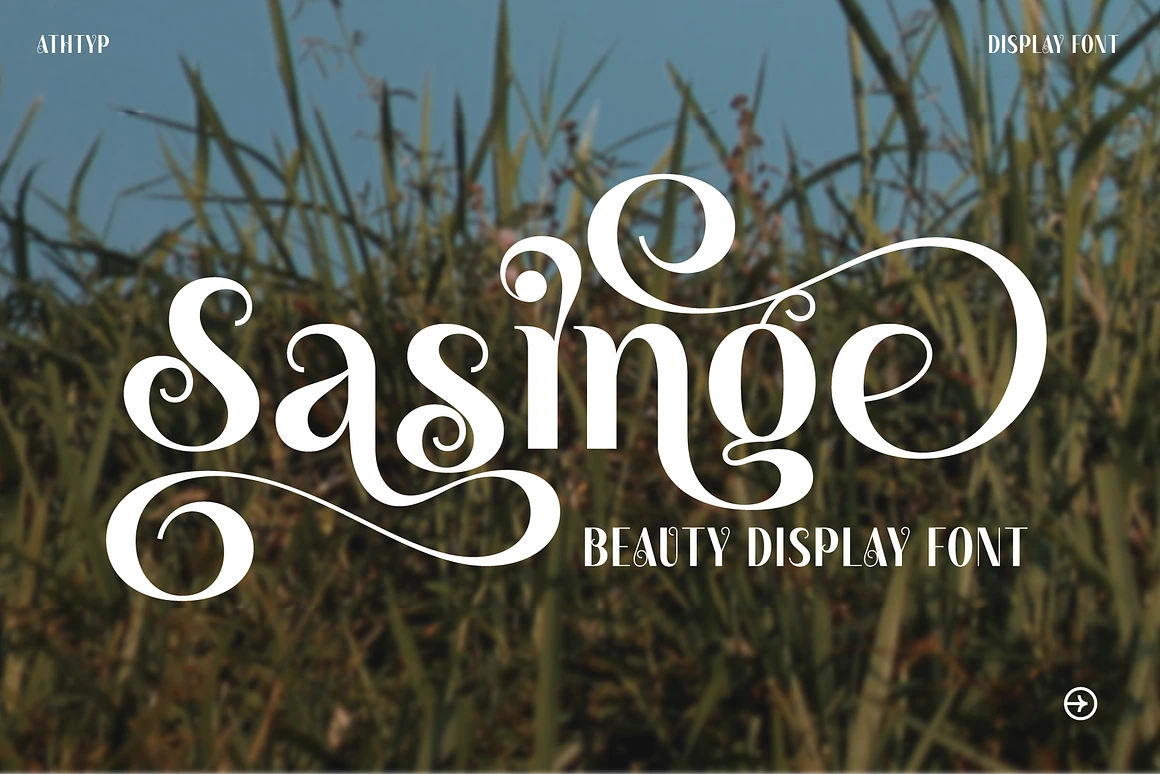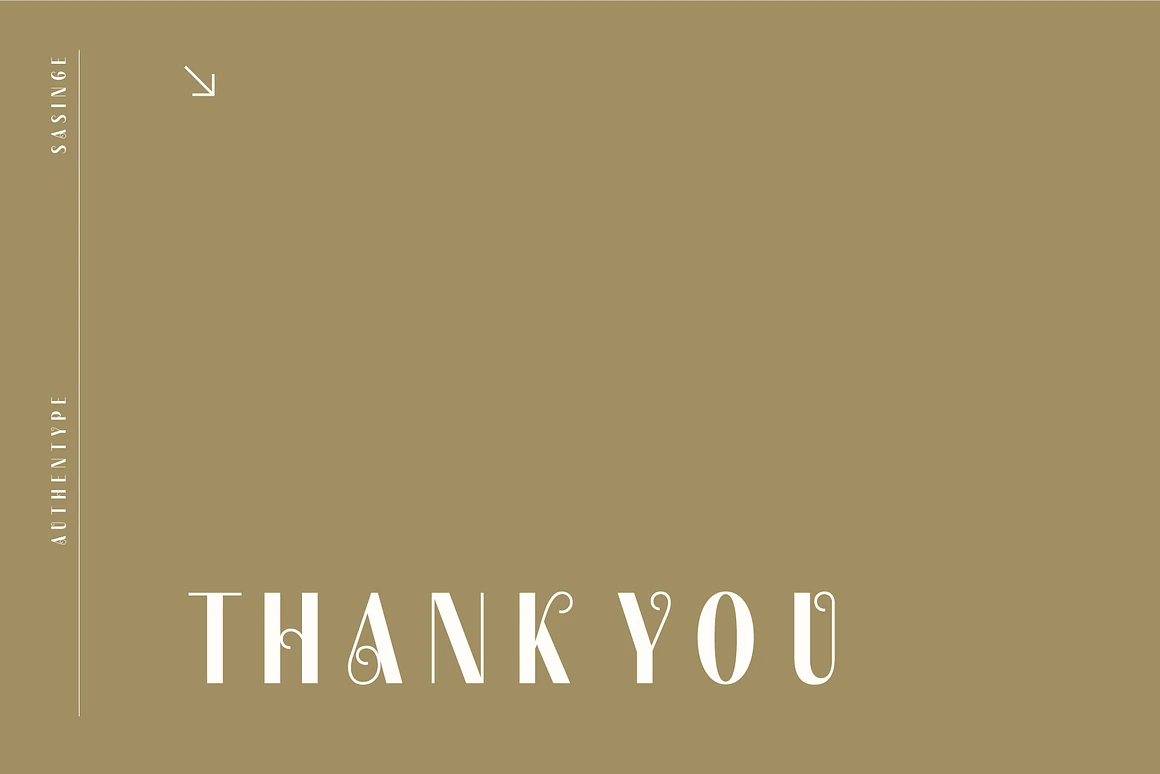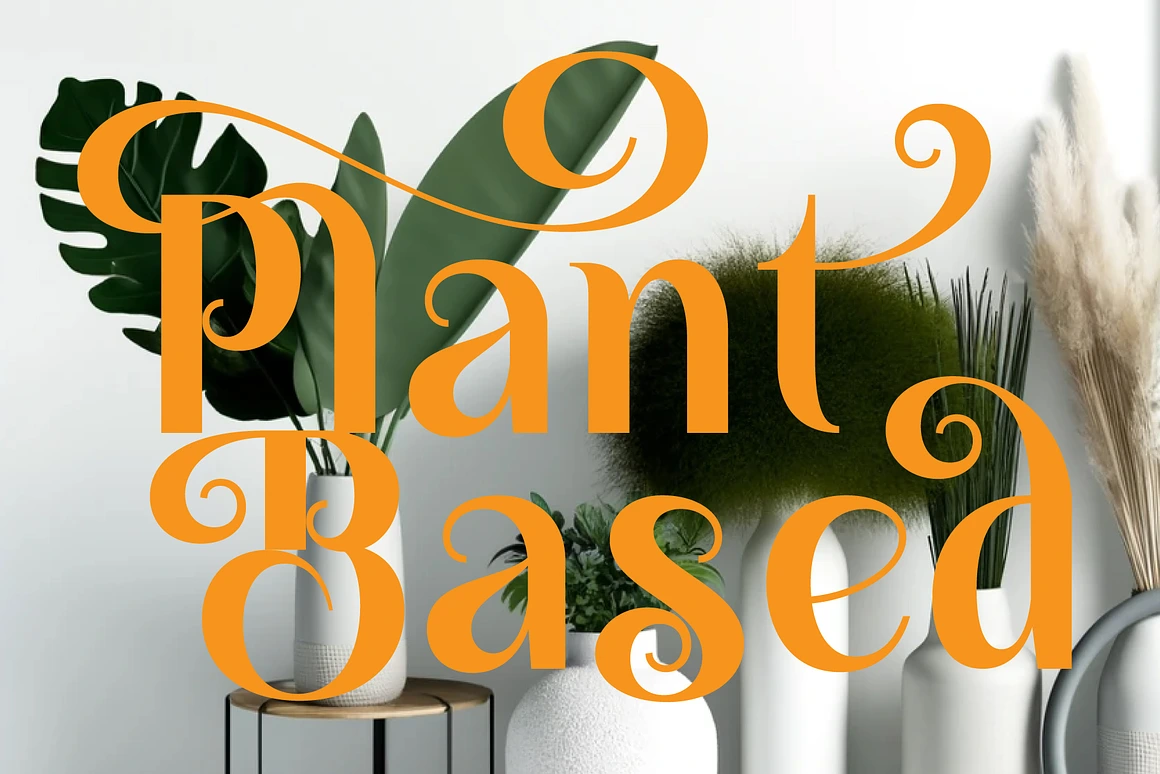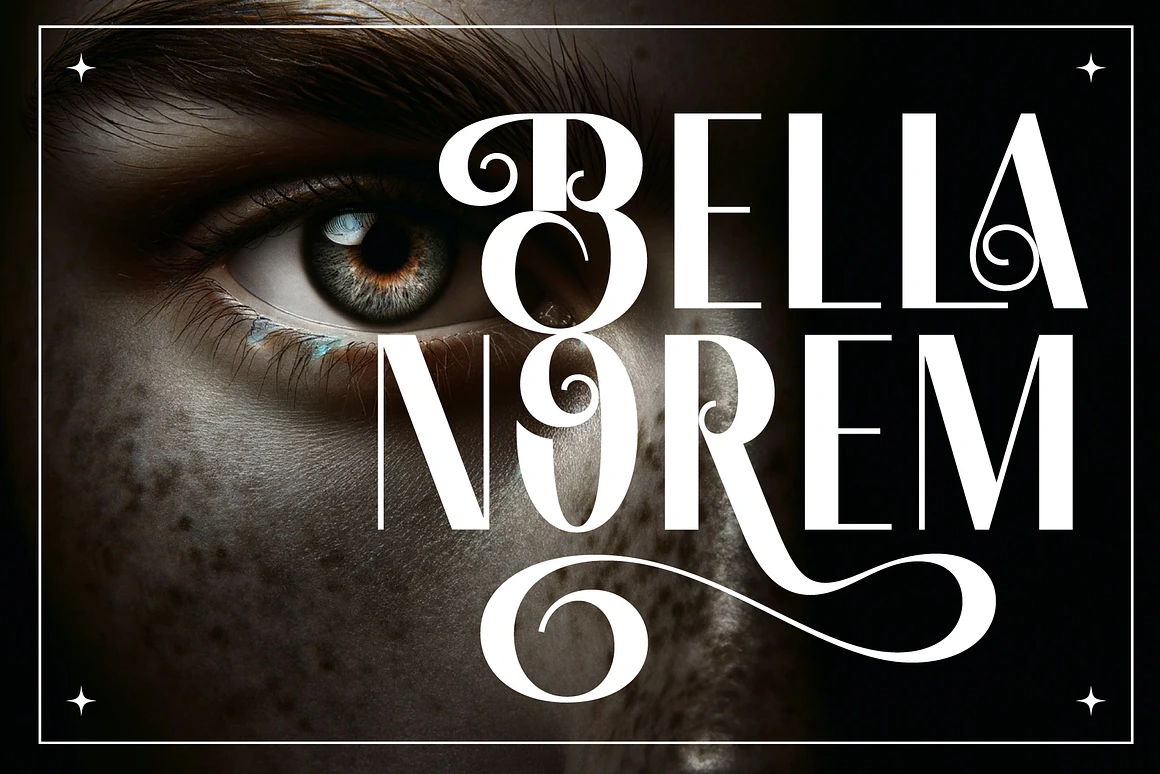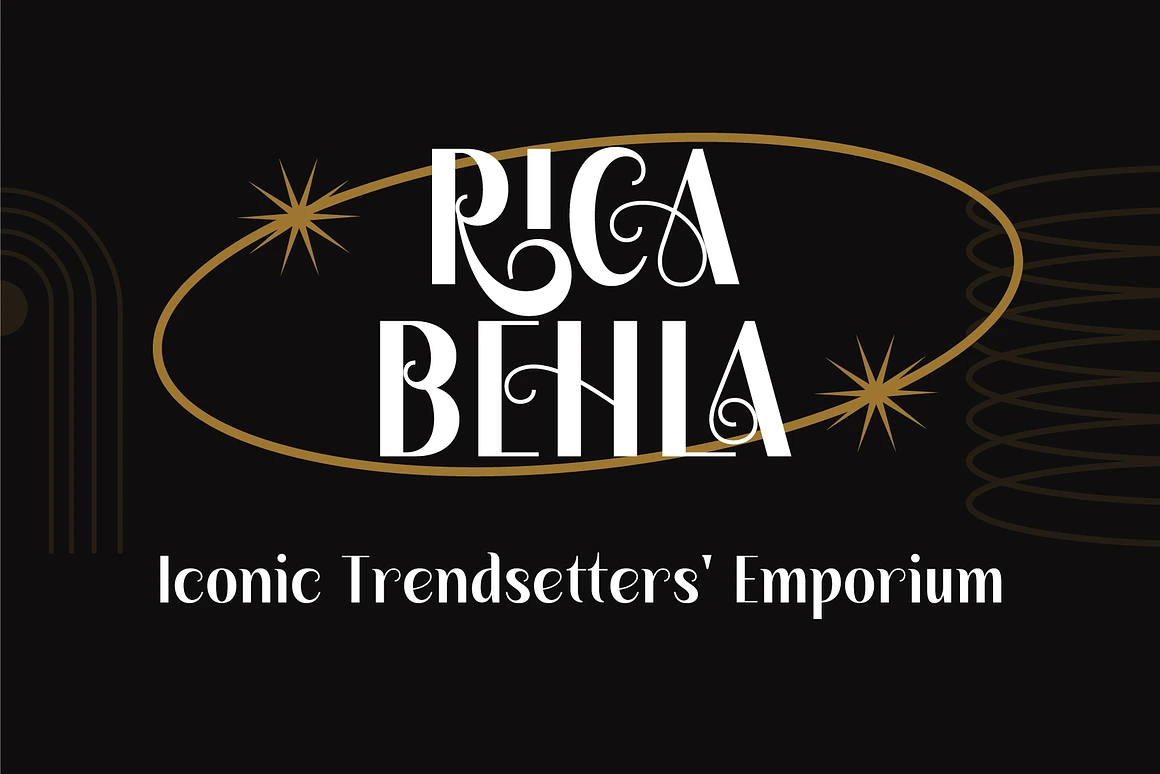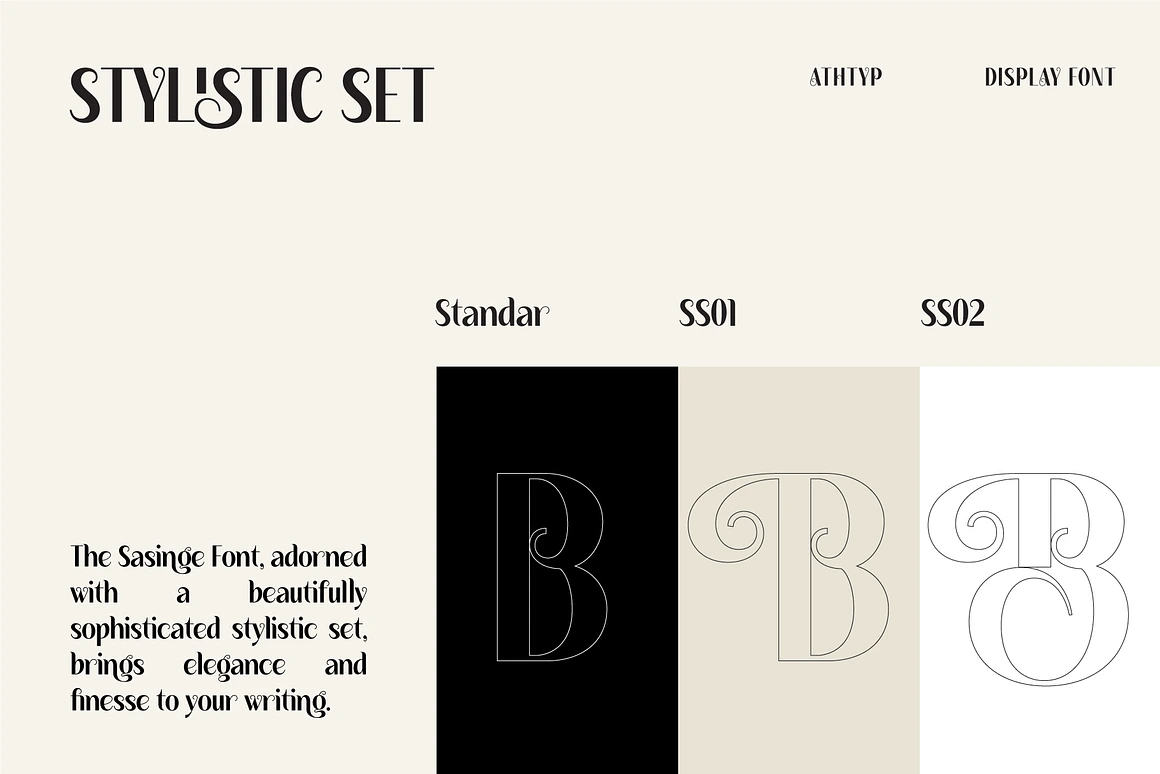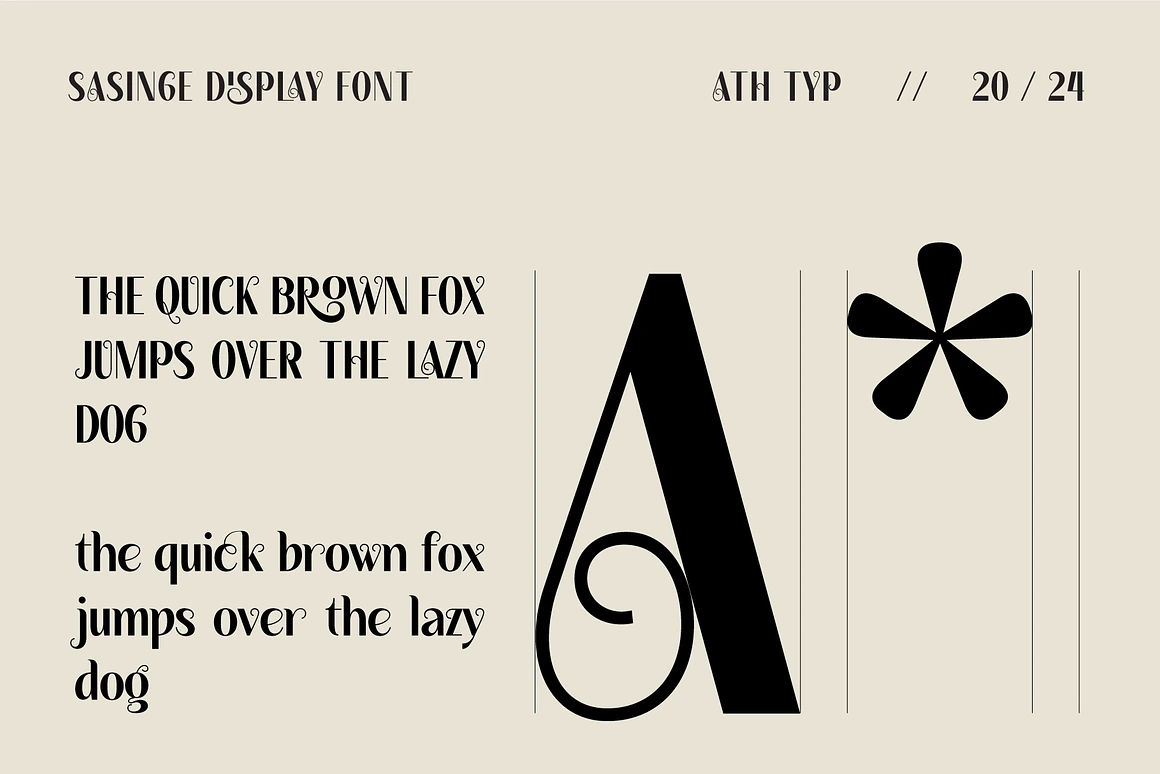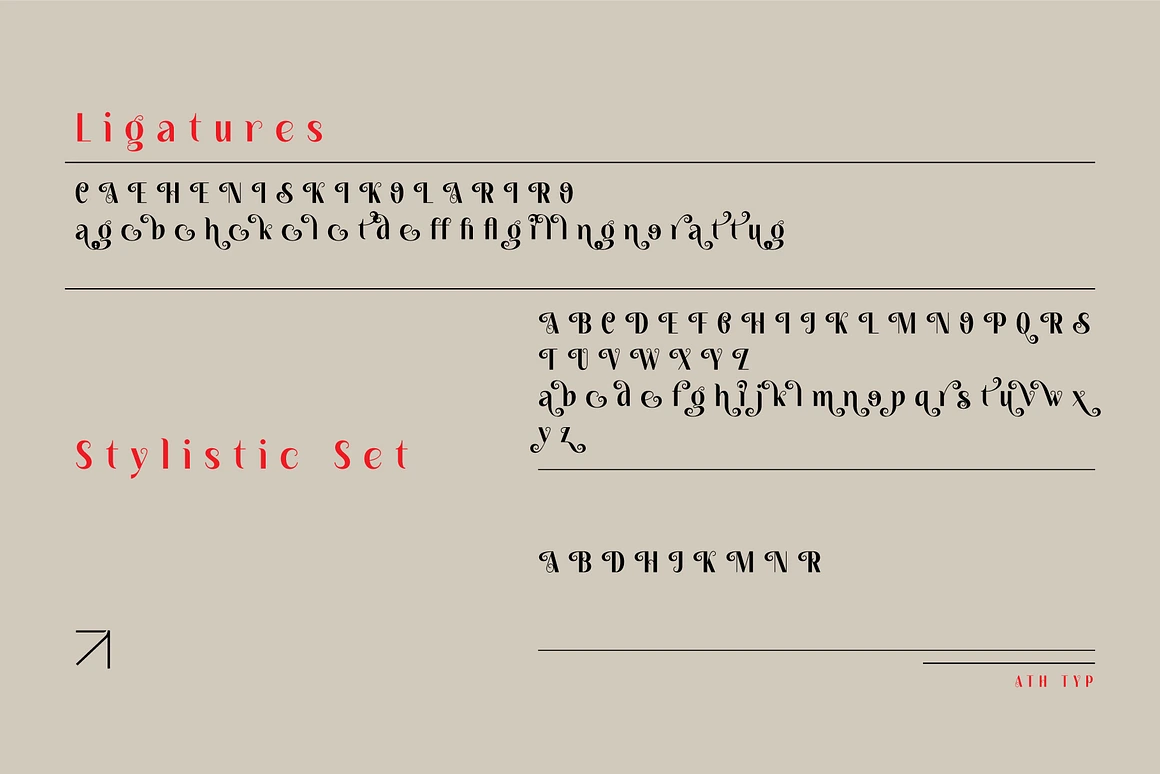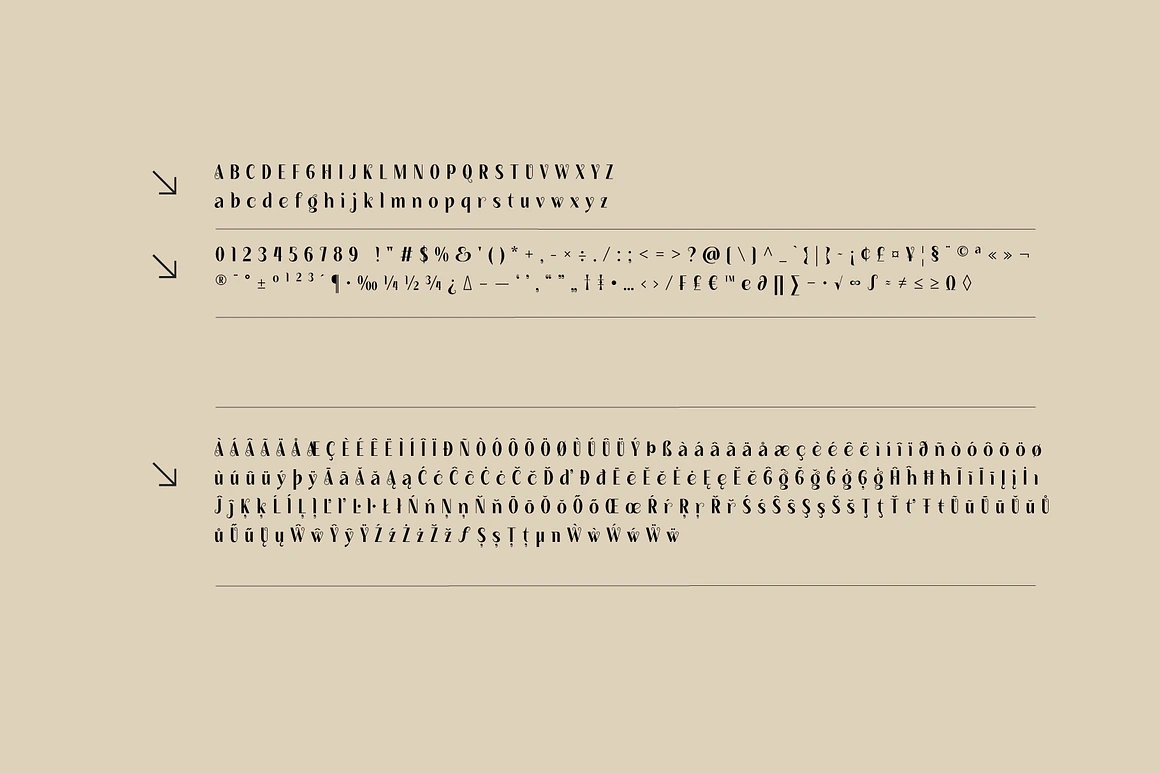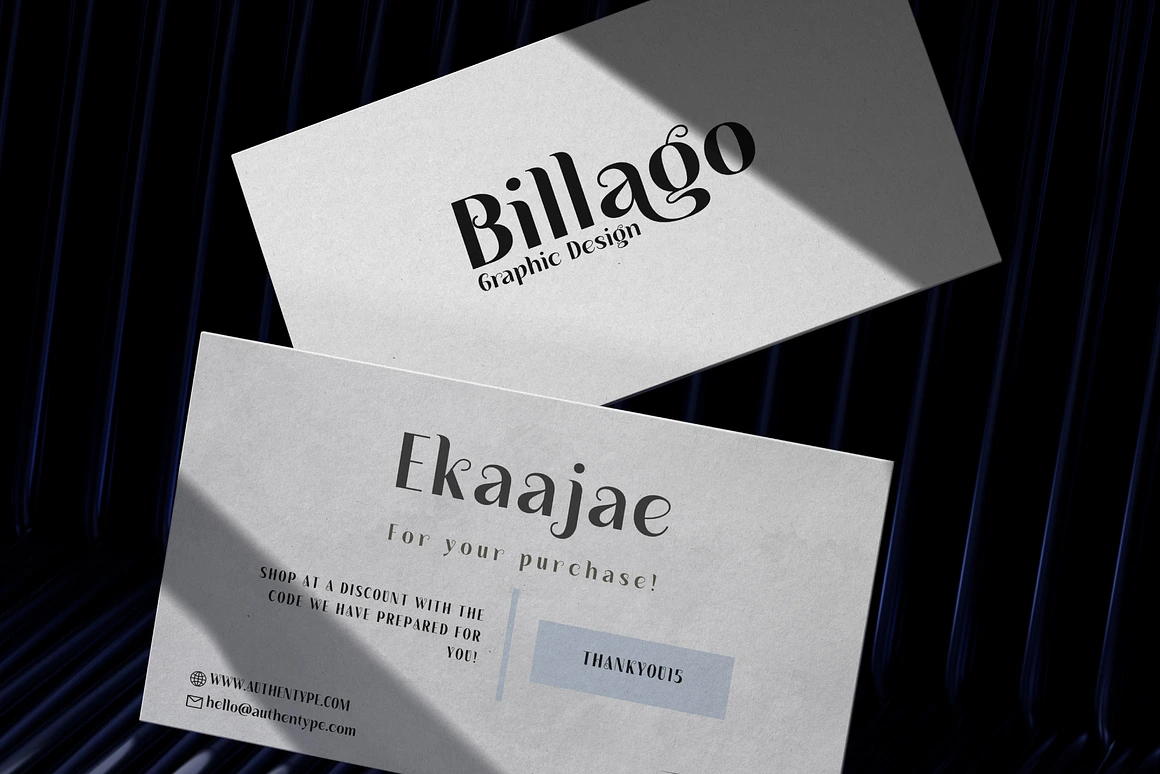
Sasinge Beauty Display Font
Sasinge
Sasinge Beauty Display Font, a captivating display font that embodies elegance and sophistication. With its unique character design, Sasinge Beauty is the epitome of style and finesse, perfect for making a statement in high-end branding, luxury advertising, and fashion editorial projects.
Key Features:
Ligatures: Sasinge Beauty comes with a set of beautifully crafted ligatures that seamlessly blend letters together, providing a smooth and connected text flow. These artistic touches add a bespoke feel to any design, making your projects stand out with an added layer of sophistication.
Stylistic Alternates: Unlock your creative potential with a wealth of stylistic alternates. Sasinge Beauty Display Font offers a variety of alternate characters that allow you to customize your text with decorative flair and individuality. Whether you’re looking for an ornate capital to start a headline or a whimsical end letter, this font provides endless possibilities to enhance your designs.
Multilingual Support: Catering to a global audience, Sasinge Beauty is equipped with extensive multilingual support, ensuring that your message resonates worldwide. This feature makes it an ideal choice for international brands, publications, and designers looking to communicate across different languages without compromising on style.
Sasinge Beauty Display Font is more than just typography; it’s a versatile tool that brings artistic expression to the forefront. Whether you’re crafting elegant invitations, standout packaging, or compelling digital content, Sasinge Beauty adds a touch of class that elevates your design work to new heights.
– Standard glyphs uppercase and lowercase letters
– Numerals, a large range of punctuation and ligatures.
– Swashes, Stylistic Set
– Multilingual support for; ä ö ü Ä Ö Ü ß ¿¡